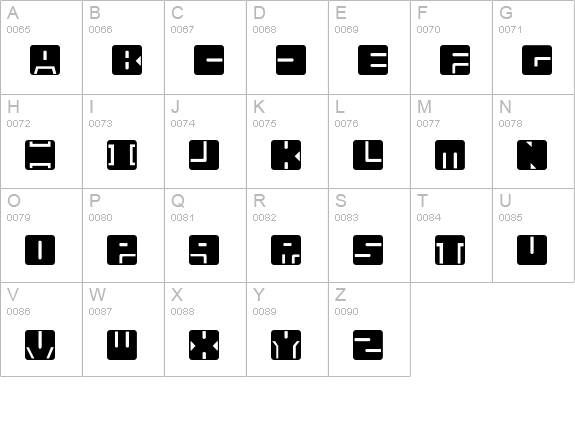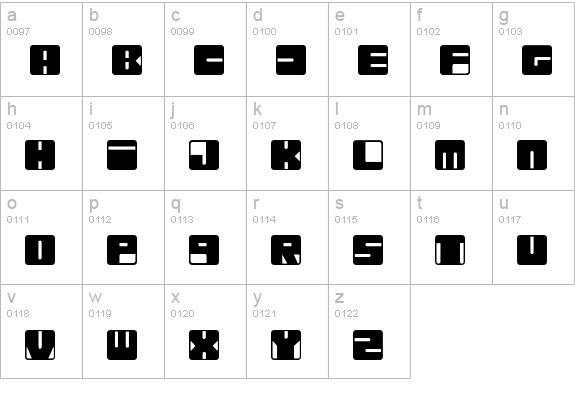
Geotype TT Font Details
Geotype TT font is a truly unique and captivating typeface that effortlessly combines modernity with a touch of elegance. Its sleek and clean lines make it perfect for a wide range of designs, from logos and headlines to branding materials and packaging. What sets Geotype TT font apart is not only its stunning aesthetics but also its versatility. With multiple weights and styles available, this font allows you to create various moods and atmospheres within your designs. Whether you're aiming for a bold and impactful statement or a refined and sophisticated look, Geotype TT font has got you covered. But what truly makes Geotype TT font stand out is the fact that it is free. Yes, you read that right! This exceptional font is freely available to download at FontsMarket.com. So not only do you get access to a high-quality and visually striking typeface, but you also get to save your hard-earned money. Downloading Geotype TT font is a breeze. Simply head over to FontsMarket.com, locate the font, and click on the download button. Within seconds, you'll have this fantastic font ready to be used in your design projects. Whether you're a professional designer looking to enhance your portfolio or a creative enthusiast eager to explore new typographic possibilities, Geotype TT font is the perfect choice. Its versatility, elegance, and the fact that it is free make it an absolute must-have in your font library. Don't miss out on the opportunity to elevate your designs with Geotype TT font. Visit FontsMarket.com today and experience the seamless combination of style and affordability that this font offers.